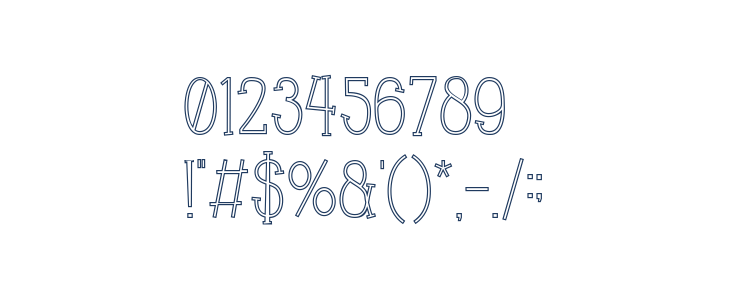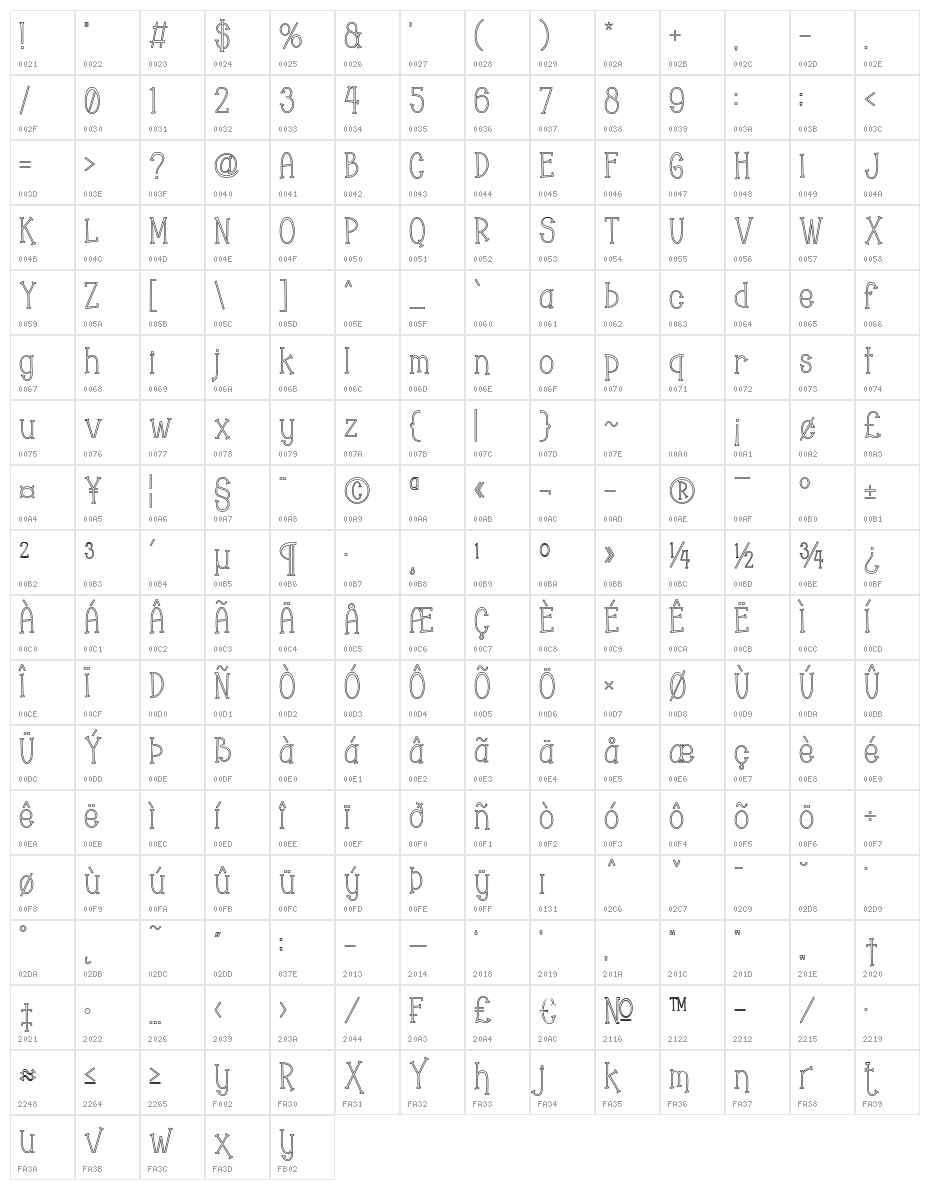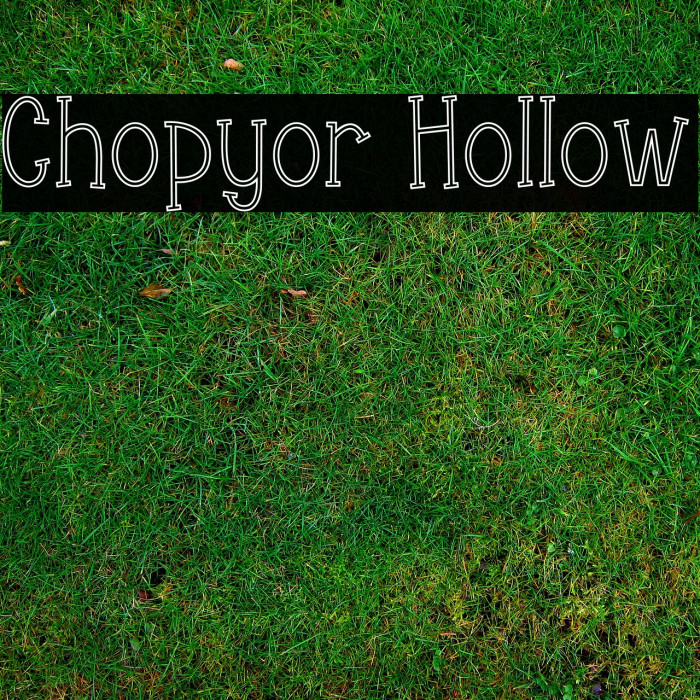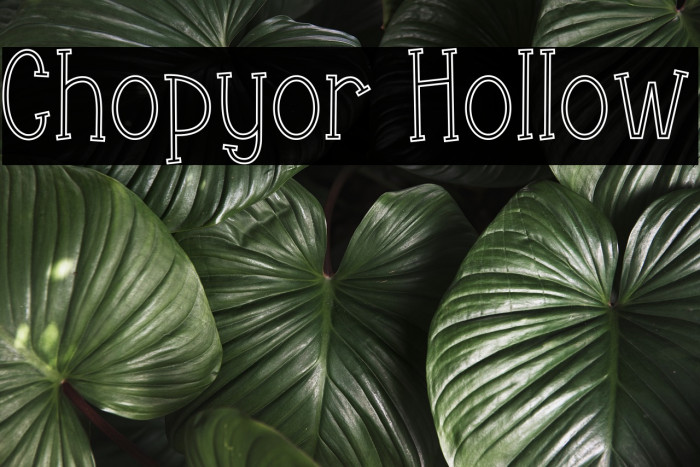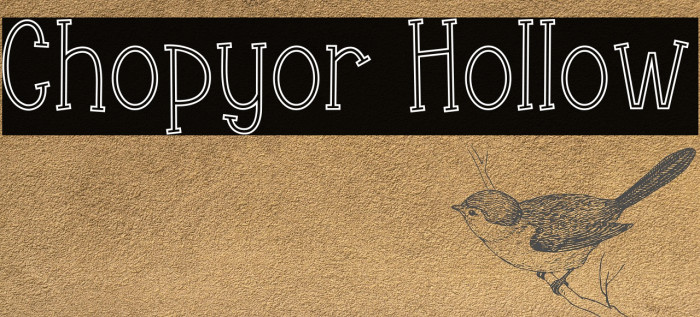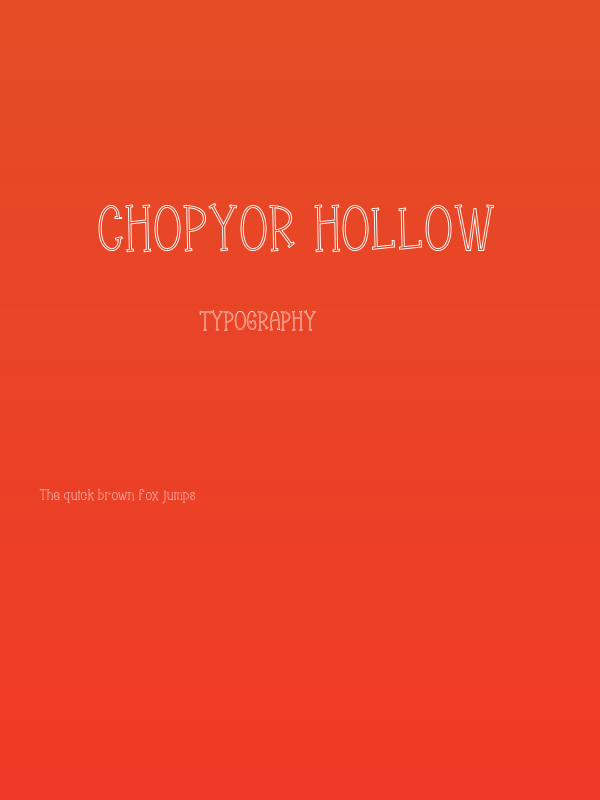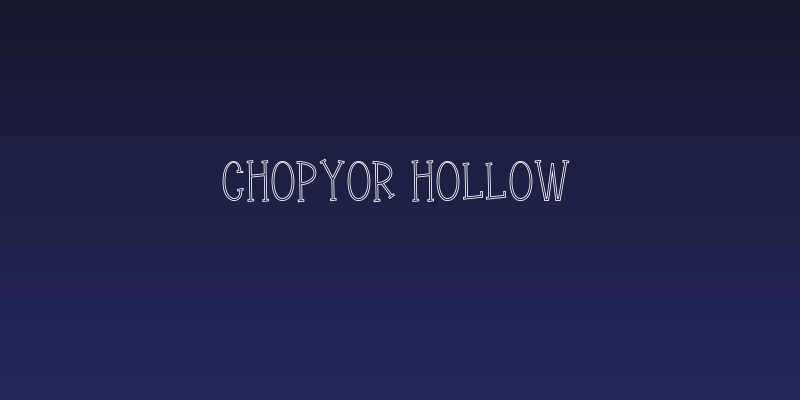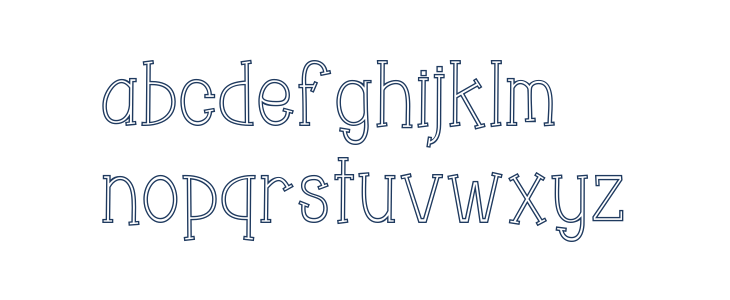
Chopyor Hollow Font
Chopyor Hollow Description
This font features a playful and whimsical hollow design, characterized by its outlined letters that create a sense of lightness and fun. The uppercase and lowercase letters maintain a consistent style, with slightly exaggerated curves and a casual, hand-drawn appearance. The numbers and special characters follow the same aesthetic, ensuring a cohesive look across all glyphs. The font's hollow nature gives it a unique charm, making it stand out in any design. Its informal style is perfect for projects that require a touch of creativity and individuality.
Overall StyleWhimsical, Playful, Hand-drawn
Proposed ProjectsIdeal for children's book covers, playful posters, creative invitations, and any project needing a fun and unique touch.